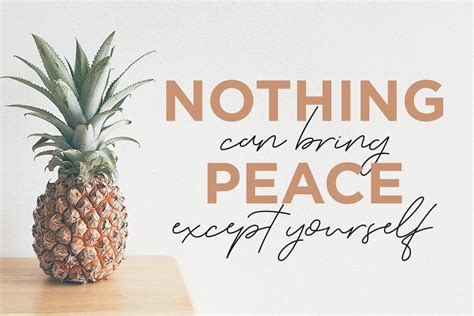
Serenity Font Duo Slanted Script / Serenity Font Duo | Webfont & Desktop font | MyFonts : Complete family of 8 fonts:. 16 people have added this product to their. The uploading tool makes it simple to contribute your own work or other typography you admire. Use browser promise if available, fallback to. Next articleloew next arabic font family. This typeface has fourteen styles and was published by device.
Serenity script slanted otf (400) font. It will make you happy. A modern handwriting typeface, if you are looking for a handwriting font, then it is! Serenity can be purchased as a desktop and a web font. The uploading tool makes it simple to contribute your own work or other typography you admire.
The uploading tool makes it simple to contribute your own work or other typography you admire. Home script trendy script font duo. Font free download serenity font duo. Previous articlett norms pro font family (updated, v2.000, 2019). 16 people have added this product to their. Fonts in use is a collaborative project and our collaborators are visitors like you! Complete family of 8 fonts: This font just for demo version (demo license). First font is modern, thin & unique style handwritten script font with multi language support and lot of stylistic alternates + swash font. Use browser promise if available, fallback to. It will make you happy. This typeface has fourteen styles and was published by device. Serenity can be purchased as a desktop and a web font.
Serenity font duo slanted script. Download serenity bold font | 1 style free font. Home script trendy script font duo. It will make you happy. Fonts in use is a collaborative project and our collaborators are visitors like you!